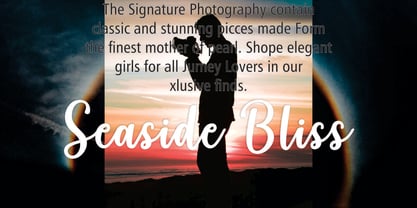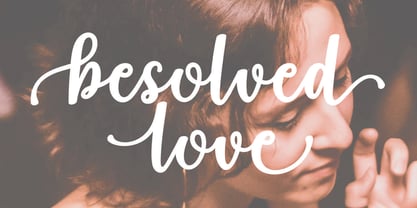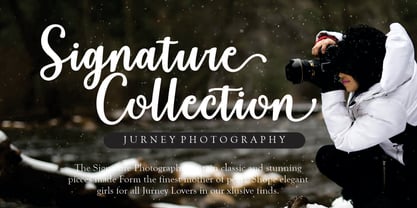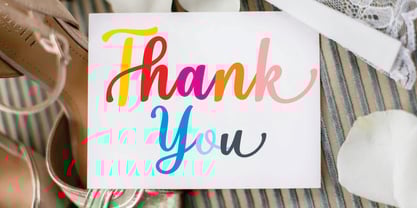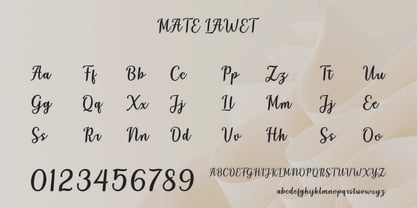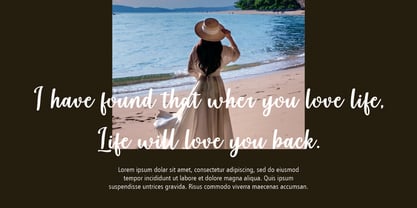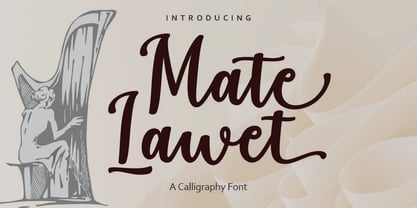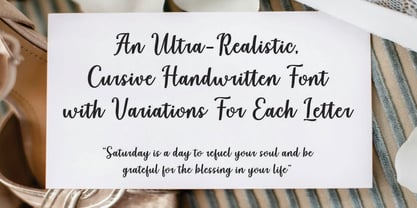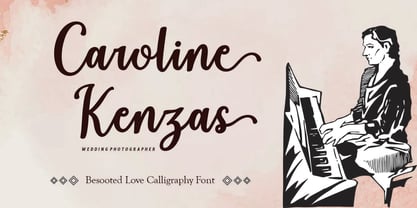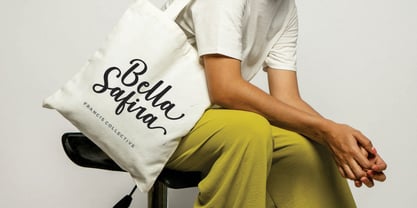
Mate Lawet
by Gian Studio
The Mate Lawet Font Family was designed by Yusliana M Isa and published by Gian Studio. Mate Lawet contains 1 styles. More about this family
"Mate Lawet" Calligraphy fonts are characterized by elegant, flowing strokes that mimic the appearance of handwritten script produced by a skilled calligrapher. The "Mate Lawet" variant might refer to a specific style or design within the broader category of calligraphy fonts. These fonts are often used for formal invitations, wedding stationery, certificates, and other designs where a sophisticated and classic aesthetic is desired.
Designers: Yusliana M Isa
Foundry: Gian Studio